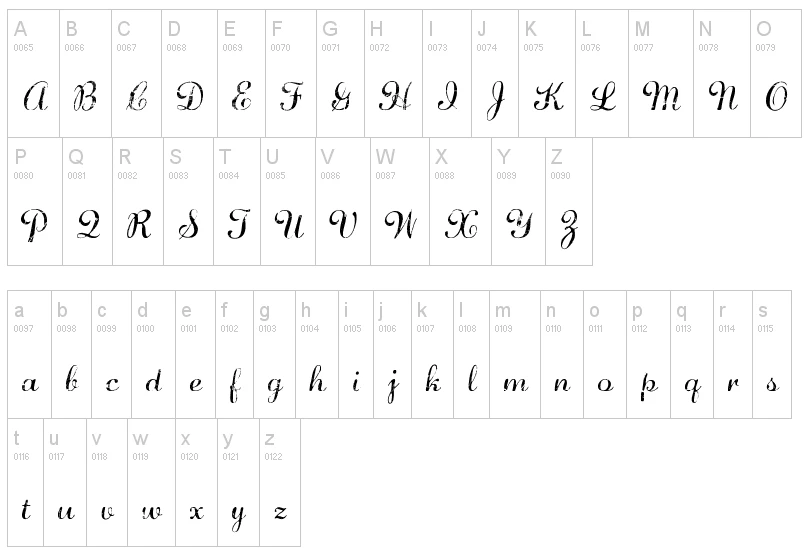
Diamond Dust is a script font designed by Herofonts. With its eye-catching look, Diamond dust is significantly user-friendly and appears very perfectly on the screen. We are providing the demonstration variation of the Diamond dust font.
Diamond Dust is a font that you can use everywhere. From usual keying to design creation, this font appropriates to use in any viewpoint. Designers enjoy using this font greater than others.
A variety of designers also refer and choose this font for the purpose not only for their convenience but also for the stunning appearance. Besides designing, you can use this font in the section which is given listed below.
Designing: For monumental designing purposes, Such as Calling cards, Headlines, Brochures layouts, Diamond Dust is at the top of every person’s favorite list.
Logos: You can design your logos with it.
Websites: I have seen different internet sites use this font.
Magazines: The font has the overview to place on top of publications.
NameDiamond Dust Font
StyleScript.
DesignerHerofonts.
What type of font is Diamond Dust Font?
Ans: Diamond Dust is a script typeface designed by herofonts.
Is there any font similar to Diamond Dust Font in Google Fonts?
Ans: Dancing Script is mostly similar to Diamond Dust Font in Google Fonts.